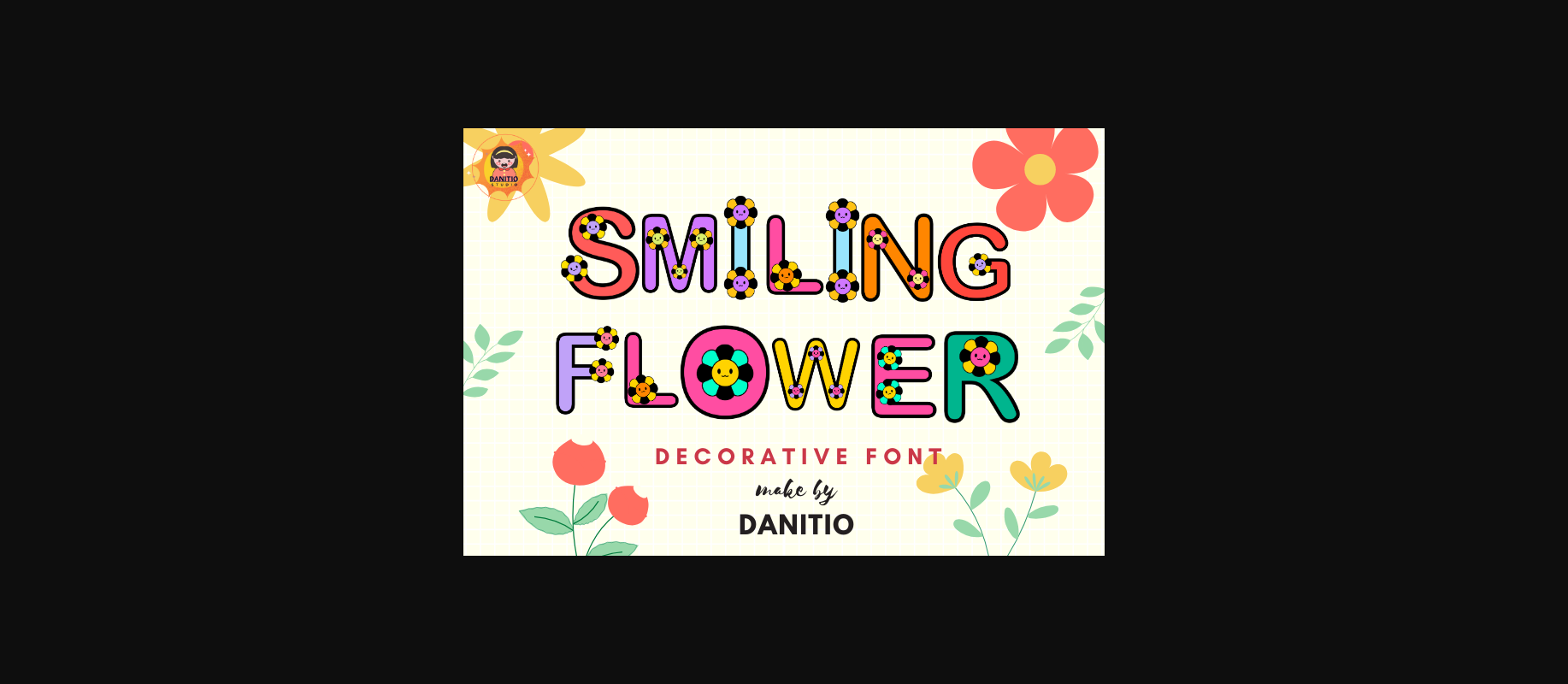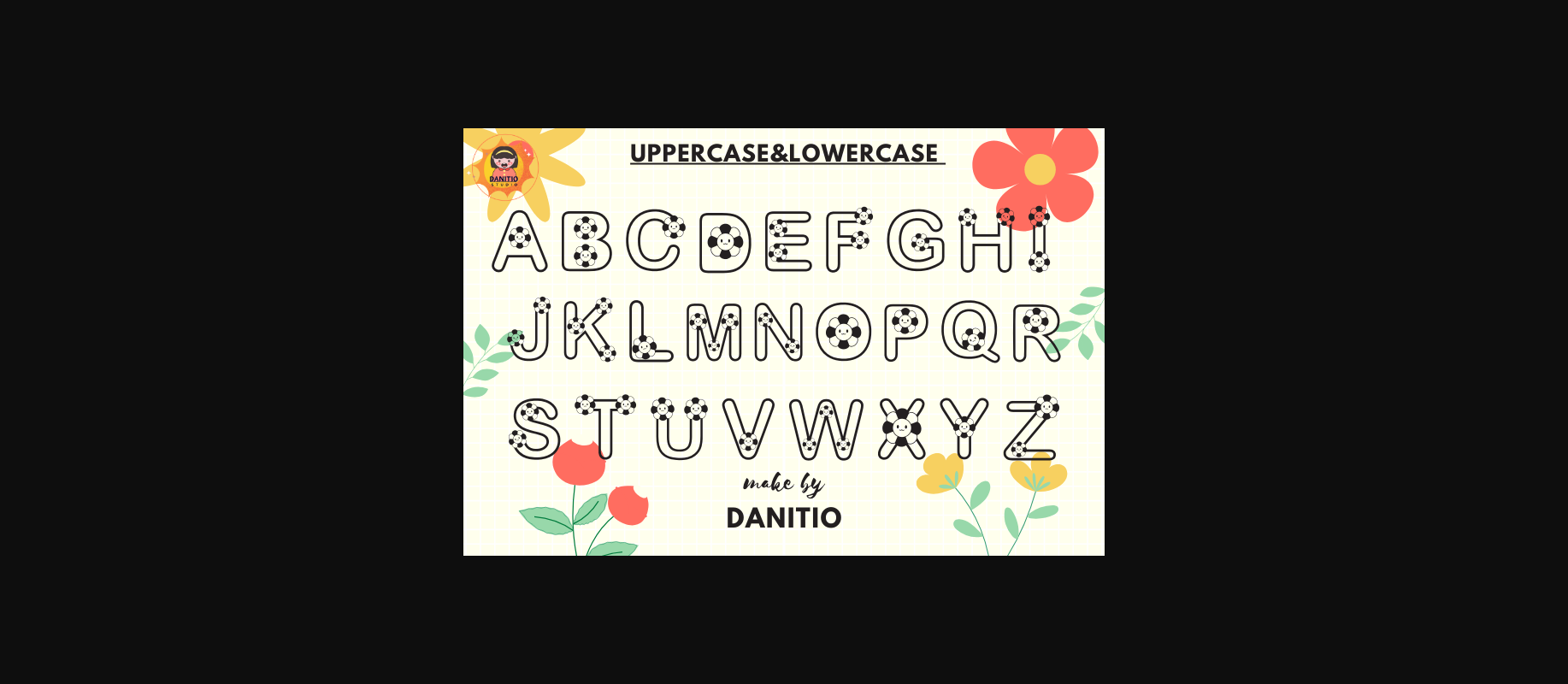
About Smiling Flower Font
Smiling flower It is a decorative font that is cute, sweet, and adorable, with flowers and smiley faces. You can use this font in your products where you see fit. Add it to your clever ideas and you will love the results! I hope you enjoy using my fonts.